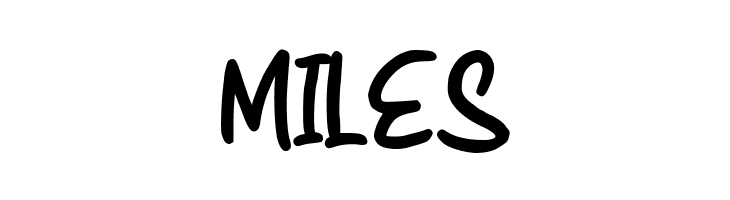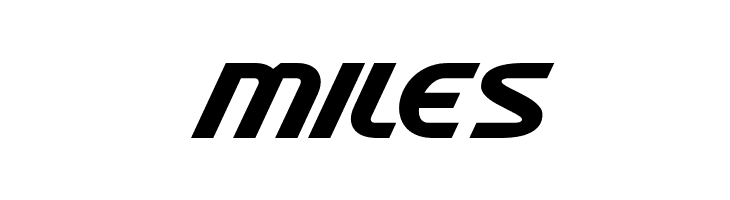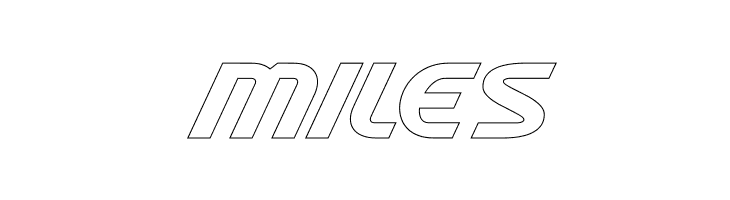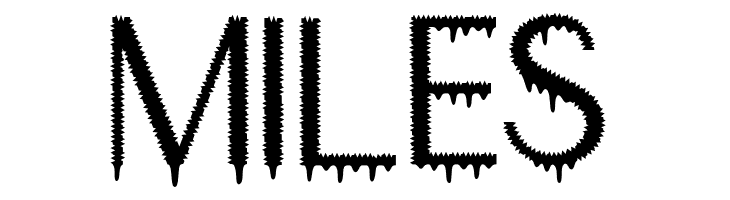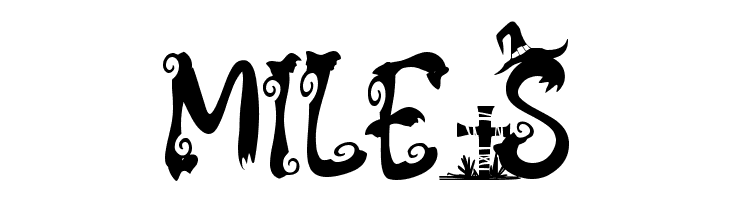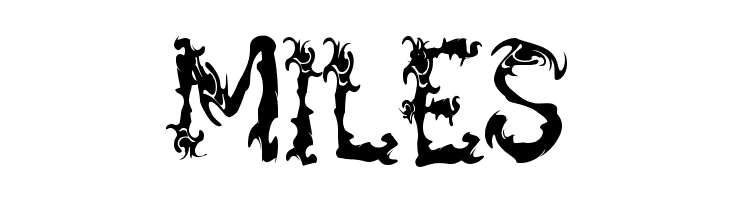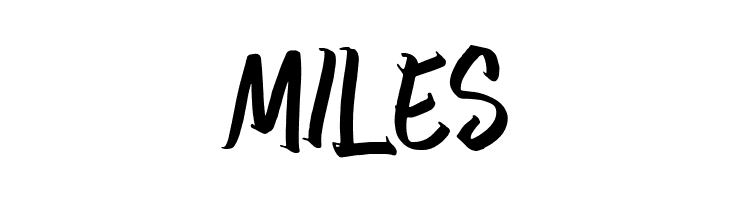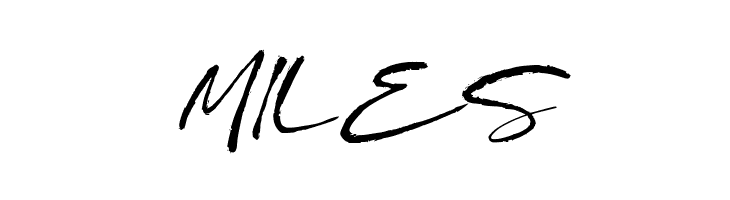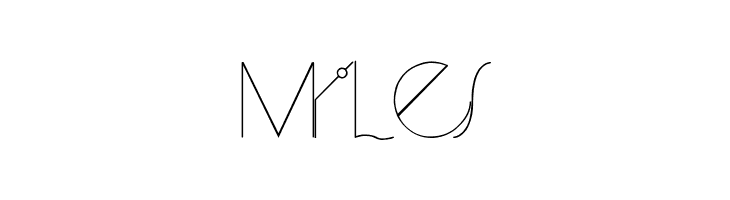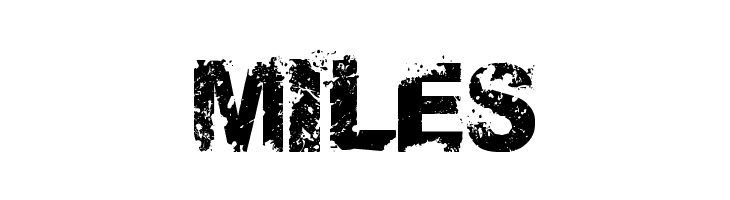
A bold, modern sans-serif font with geometric shapes and uniform strokes.
A classic serif font with elegant, tapered strokes and a refined appearance.
A pixelated, retro font inspired by early digital displays.
An elegant script font with flowing, decorative strokes and sophisticated flourishes.
A bold, modern font with geometric and uniform characters.
A playful, handwritten font with bold, irregular strokes.
A dynamic, handwritten font with expressive strokes and a fluid style.
A bold, decorative font with high contrast and intricate details.
A jagged, dripping font ideal for spooky themes.
A fiery, flame-embellished font perfect for spooky, dramatic designs.
A spooky, Halloween-themed decorative font with playful, eerie elements.
A bold, playful font with a spooky vibe, ideal for themed events.
A bold, geometric font with a unique textured pattern, ideal for modern designs.
A geometric, bold font with a modern, square-like design.
A geometric, futuristic font with sharp angles and enclosed characters.
A modern, angular italic font with a bold, futuristic style.
A bold, expressive handwritten font with dynamic strokes and a lively appearance.
A bold, italicized font with a dynamic and modern style.
A modern, geometric outline font with a sleek and dynamic appearance.
A bold, dynamic font with a starburst pattern radiating from each character.
A bold, futuristic font with angular, geometric shapes.
A whimsical and flowing script font with elegant curves and flourishes.
A bold, hand-drawn font with a playful and energetic style.
A playful, handwritten font with a bold, rounded style.
A whimsical, handwritten font with playful loops and elegant curves.
A modern, geometric font with clean lines and rounded corners, offering a futuristic and minimalistic style.
A modern, geometric font with rounded edges and a tubular design.